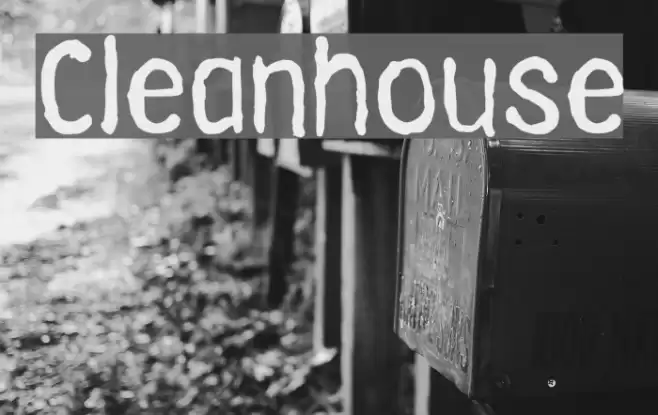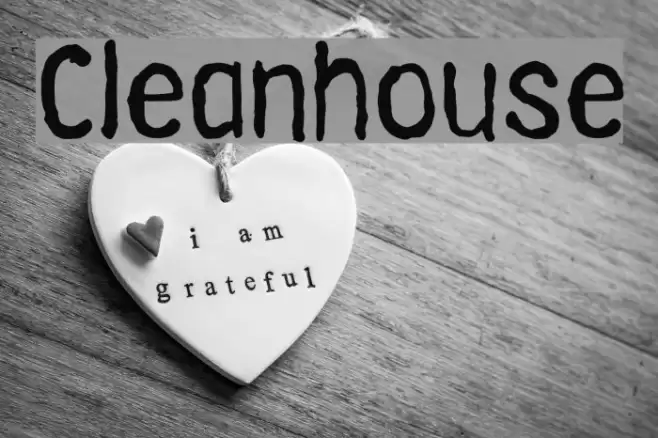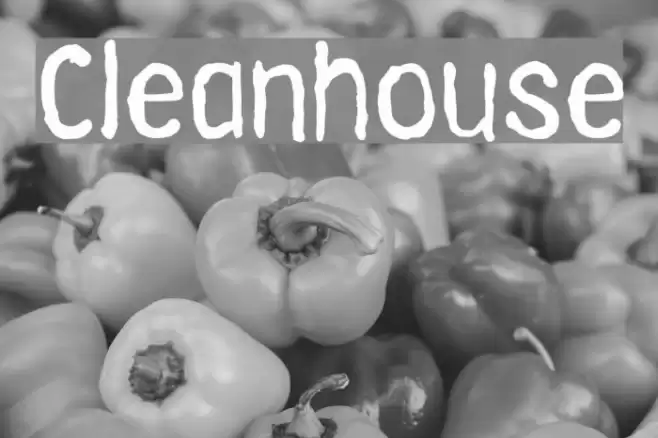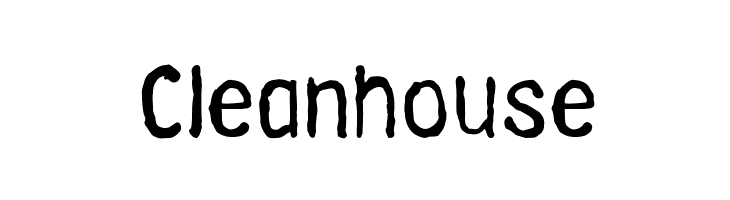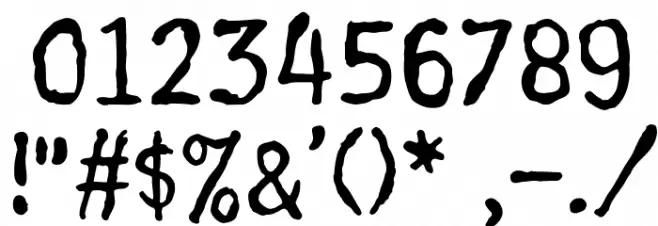
Cleanhouse Font
Cleanhouse Description
This font features a playful and slightly irregular style, reminiscent of hand-drawn lettering. The characters have a casual, organic feel, with uneven strokes and a slightly rough texture that adds to its charm. The uppercase and lowercase letters maintain a consistent style, with rounded edges and a whimsical appearance. Numbers and special characters are equally expressive, making this font suitable for creative and informal designs. Its unique character spacing and stroke variations give it a distinctive personality, perfect for projects that require a touch of individuality.
A playful, hand-drawn style font with irregular strokes and a whimsical appearance from Basic fonts.
- Proposed Projects: Ideal for children's books, greeting cards, playful branding, and artistic posters.
- Use Case: Logos, Headlines, Artistic projects